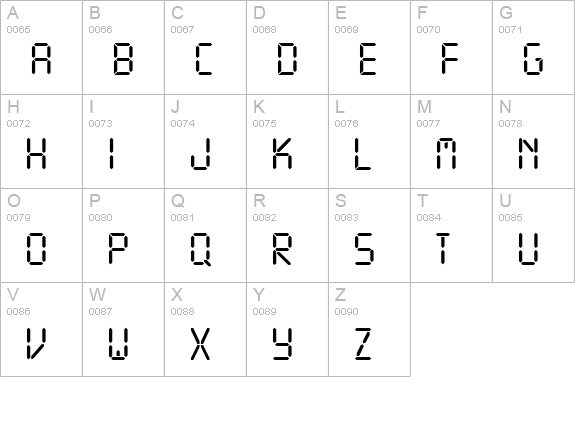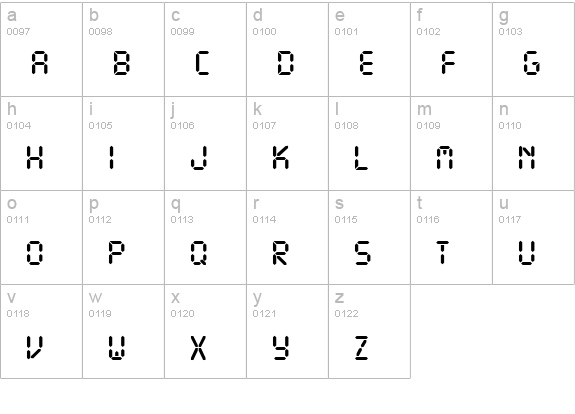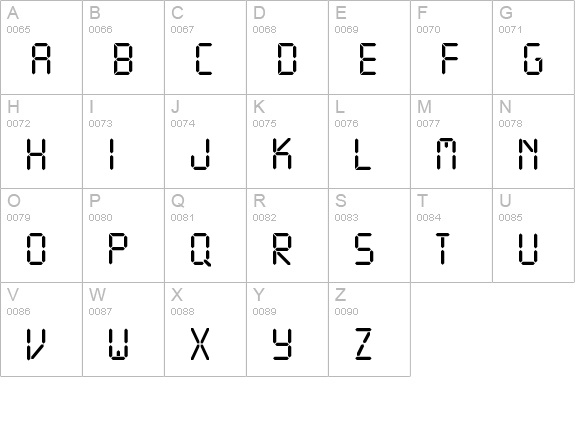
Digital Regular is the standard, neutral variant in the Digital typeface family \xE2\x80\x94 well suited to general body text, paragraphs, and standard typographic work.
Digital Regular font is a modern and versatile typeface designed for digital displays and technology-related projects. With its clean lines and balanced proportions, this font is perfect for creating a sleek and professional look. Whether you're designing a website, app interface, or digital marketing materials, Digital Regular font will help your content stand out with its crisp and legible appearance. Best of all, Digital Regular font is available for free download at FontsMarket.com. This means you can easily access this high-quality font without any cost, making it a valuable resource for your design projects. Don't miss out on the opportunity to enhance your digital creations with the stylish and functional Digital Regular font today!